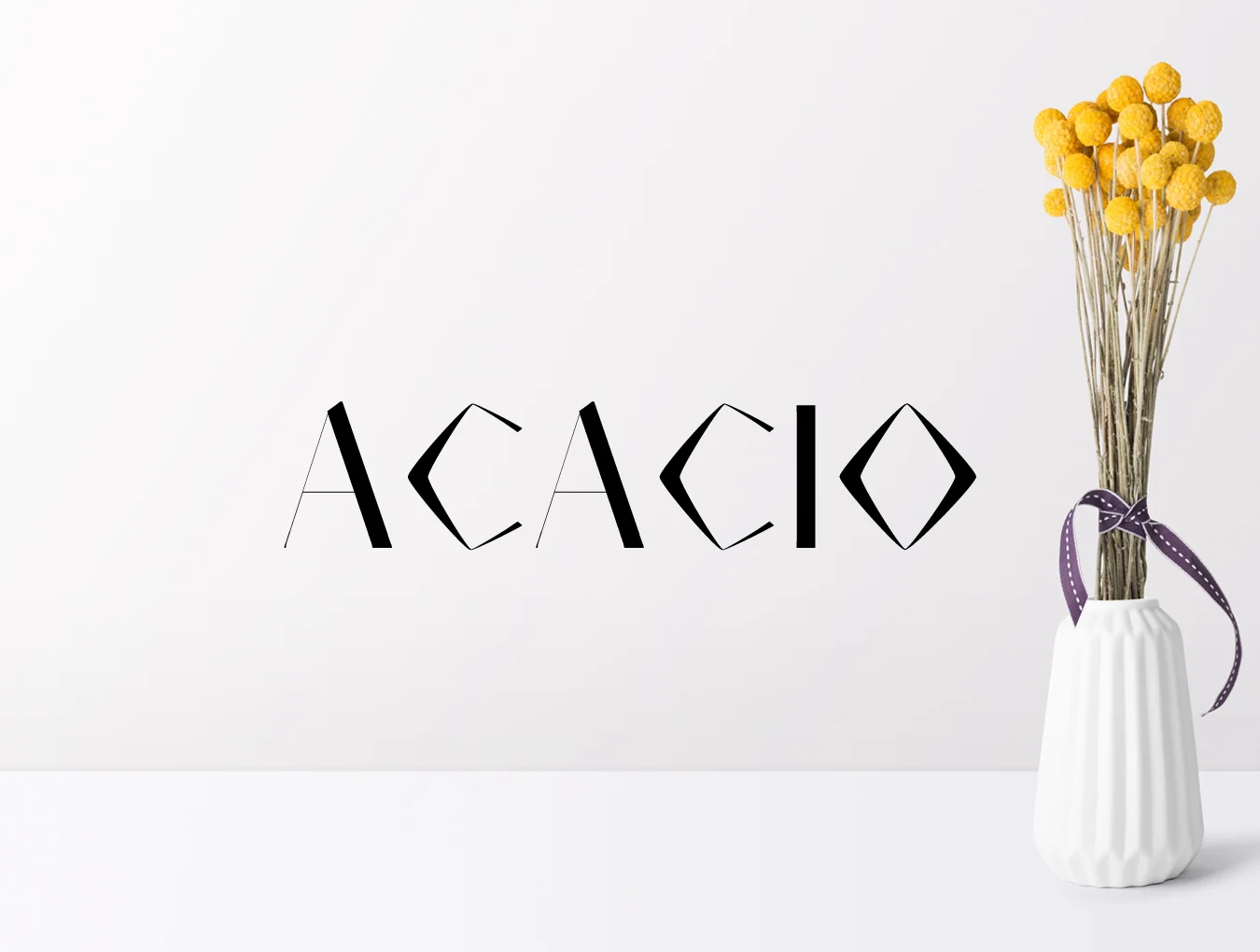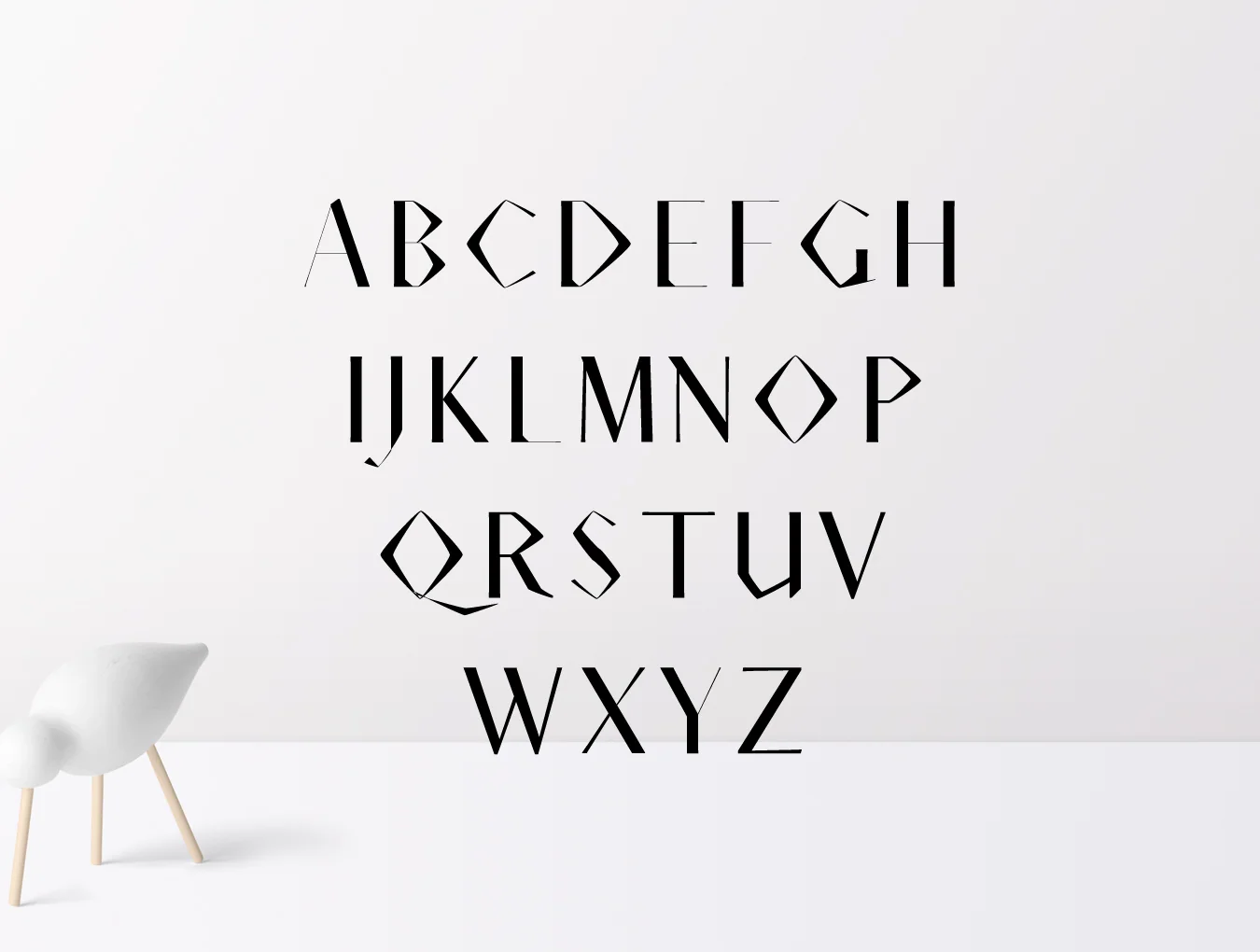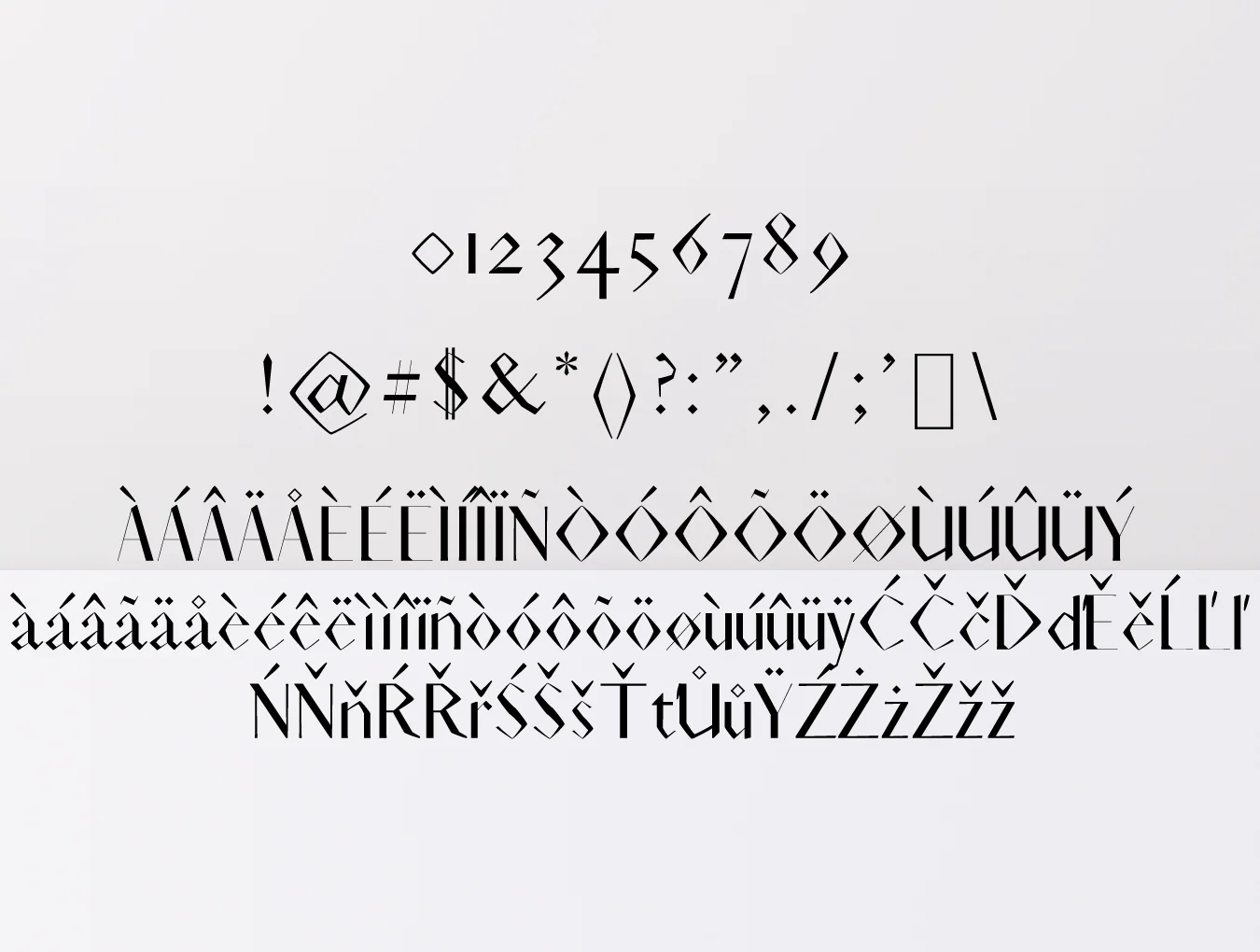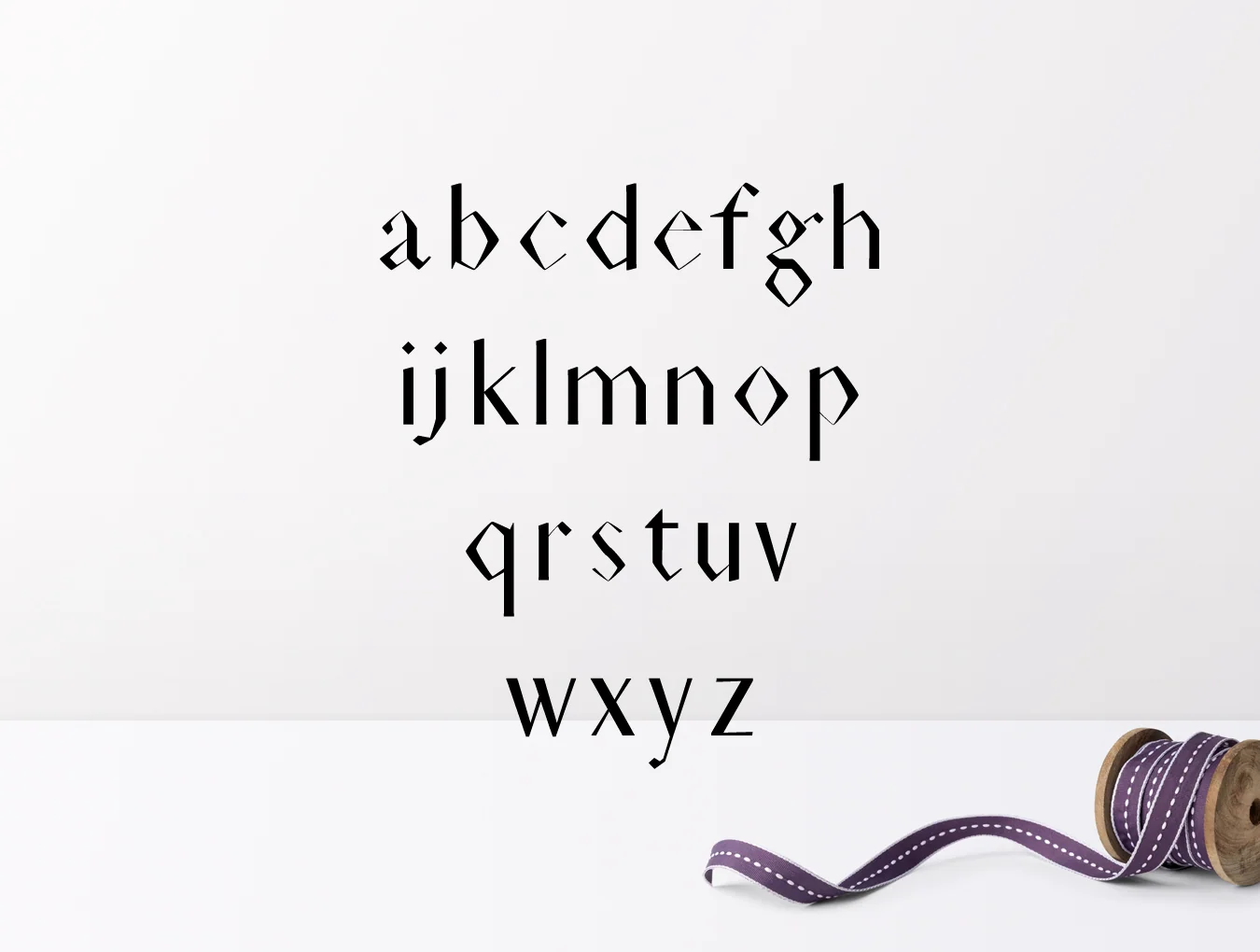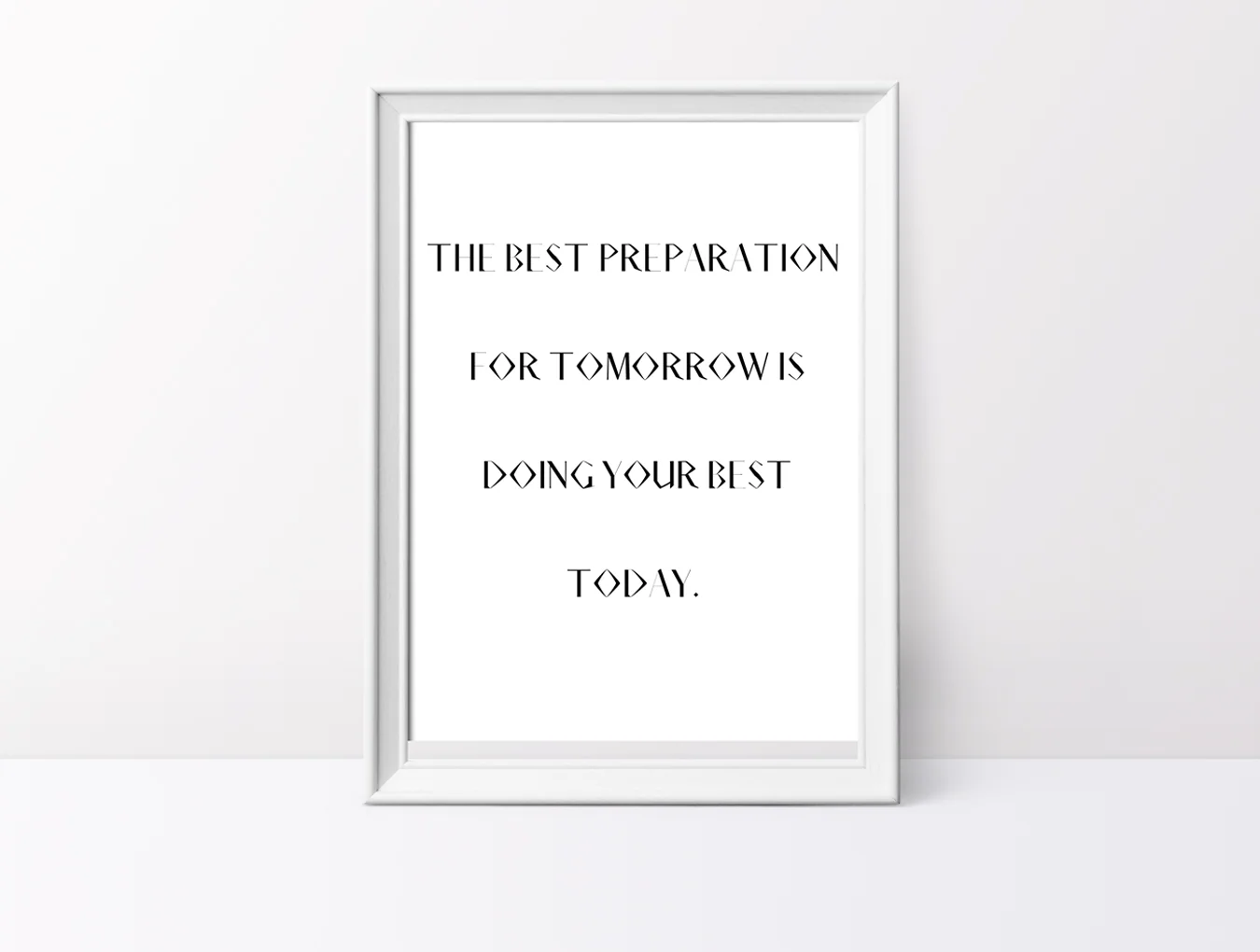
Acacio Serif
Modern Serif 2 typeface set, ideal for brand identities and logo design.
Serif Font Style
Acacio Serif 2 Font Family Pack delivers a distinctive contemporary serif style, ideal for elegant logos, headings, websites, and brand designs. Use it in all caps with generous spacing for a refined effect, or combine uppercase and lowercase for a timeless, polished appearance.